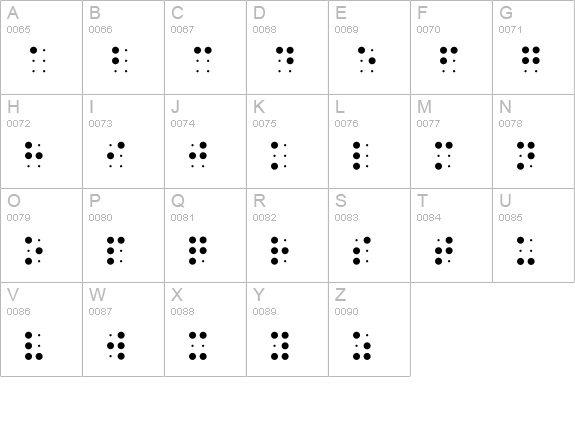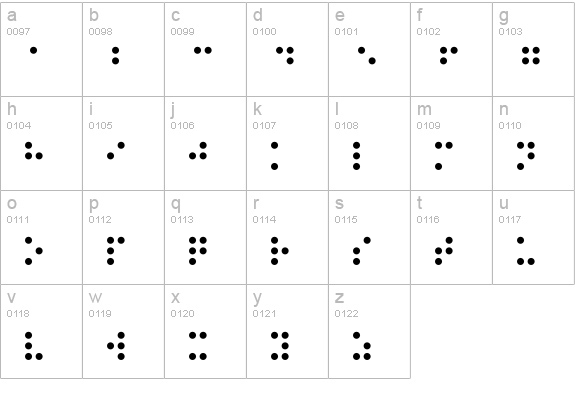
Braille Blindenschrift Font Details
The Braille Blindenschrift font is a unique and innovative typeface designed specifically for individuals with visual impairments. This font faithfully replicates the tactile feel of Braille writing, allowing users to experience the text in a new and interactive way. The raised dots and spacing of the characters make it easy for those who are blind or have low vision to read and understand the content. What makes Braille Blindenschrift even more special is that it is available for free download at FontsMarket.com. This means that anyone can easily access this font and use it in their projects to make information more accessible to a wider audience. Whether you are creating educational materials, signage, or digital content, the Braille Blindenschrift font is a valuable tool that can help you reach out to individuals with visual impairments and make a positive impact on their lives. Download this font today and start making your content more inclusive and accessible to all.